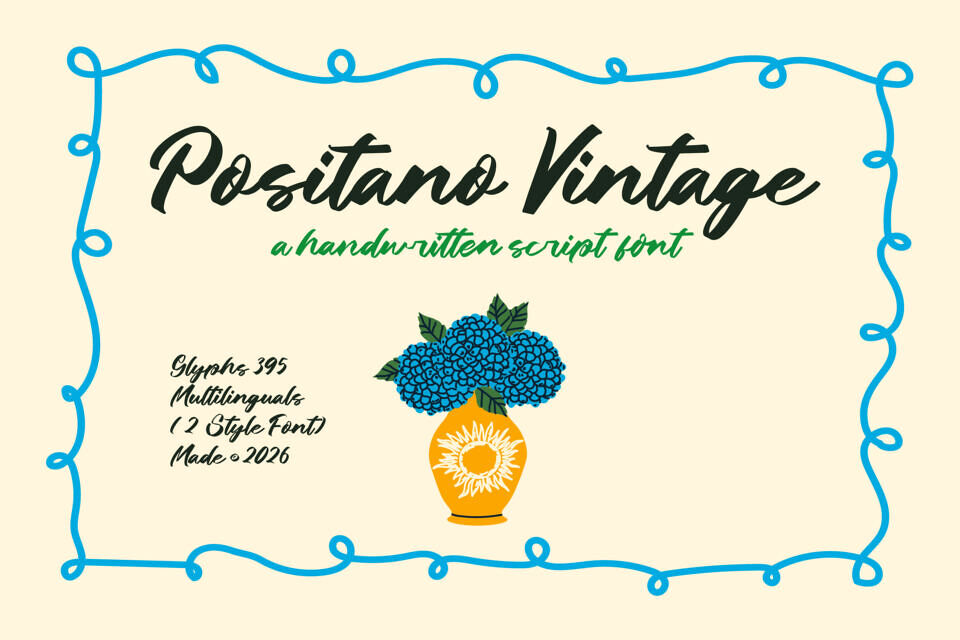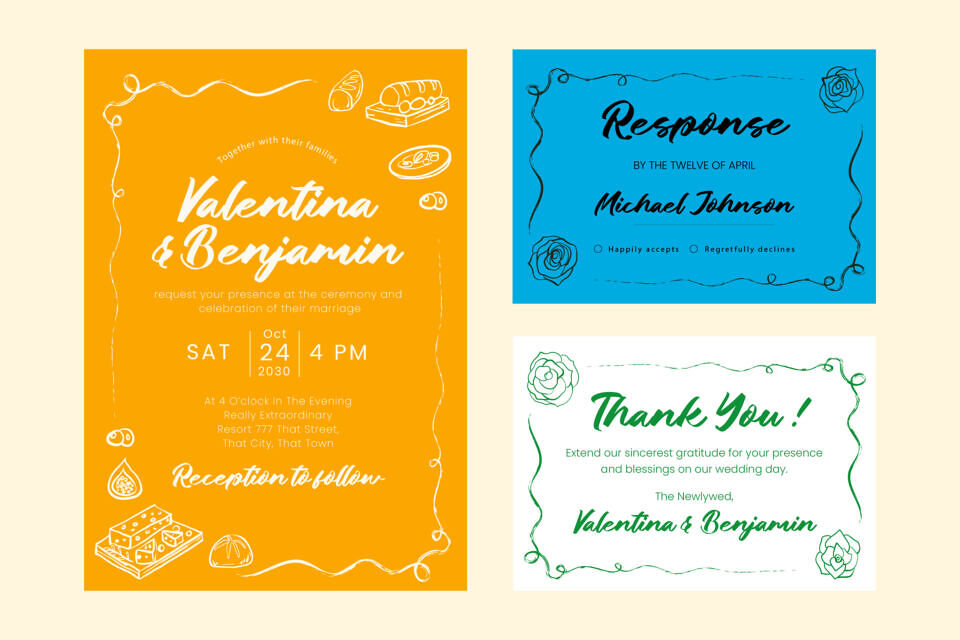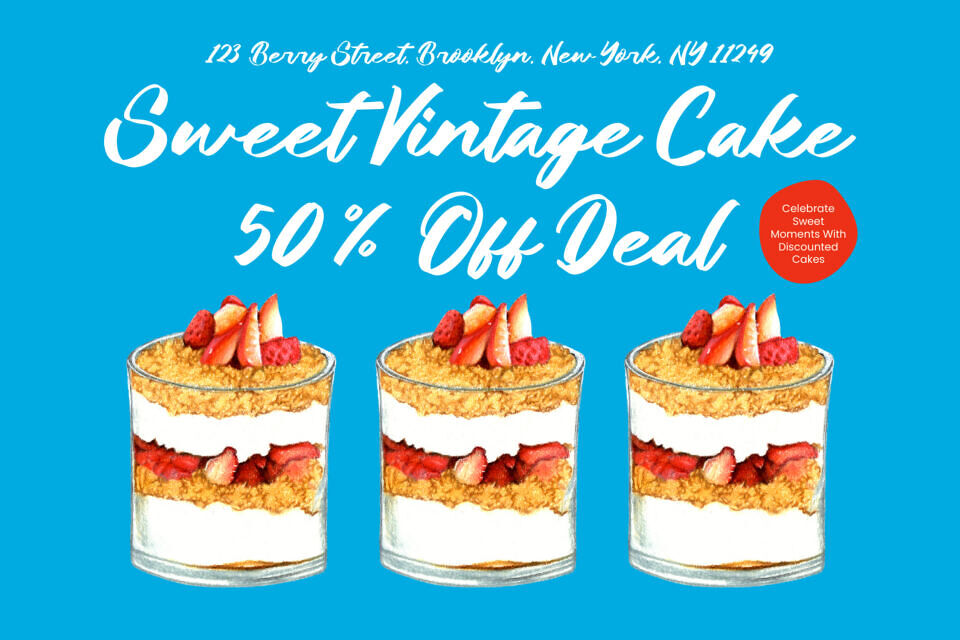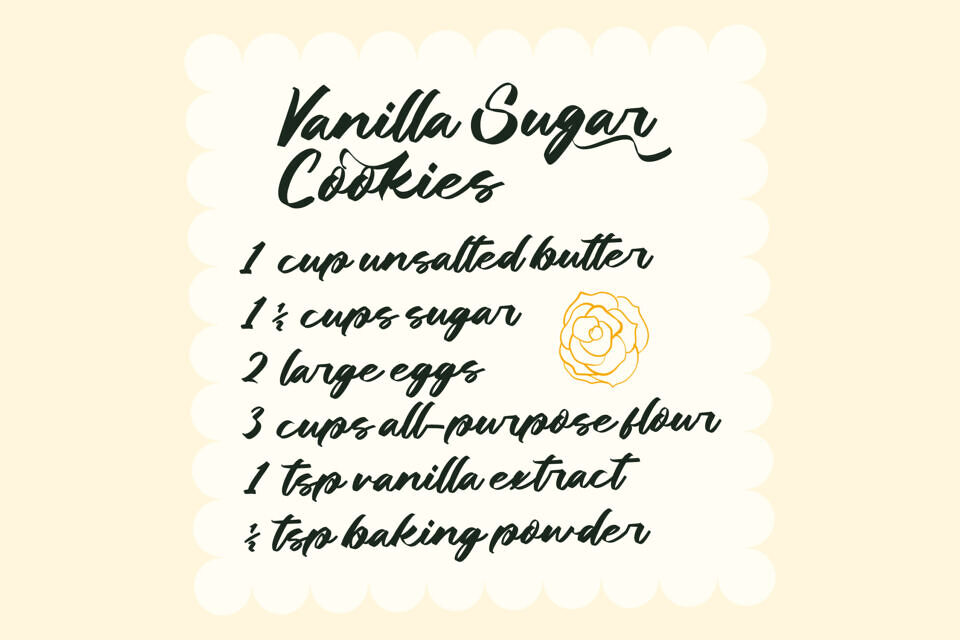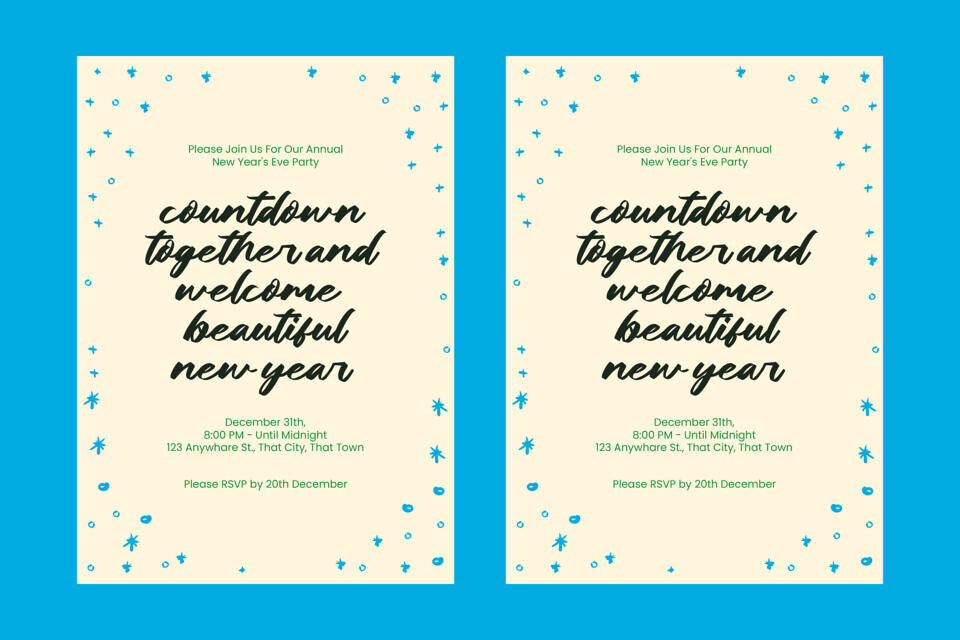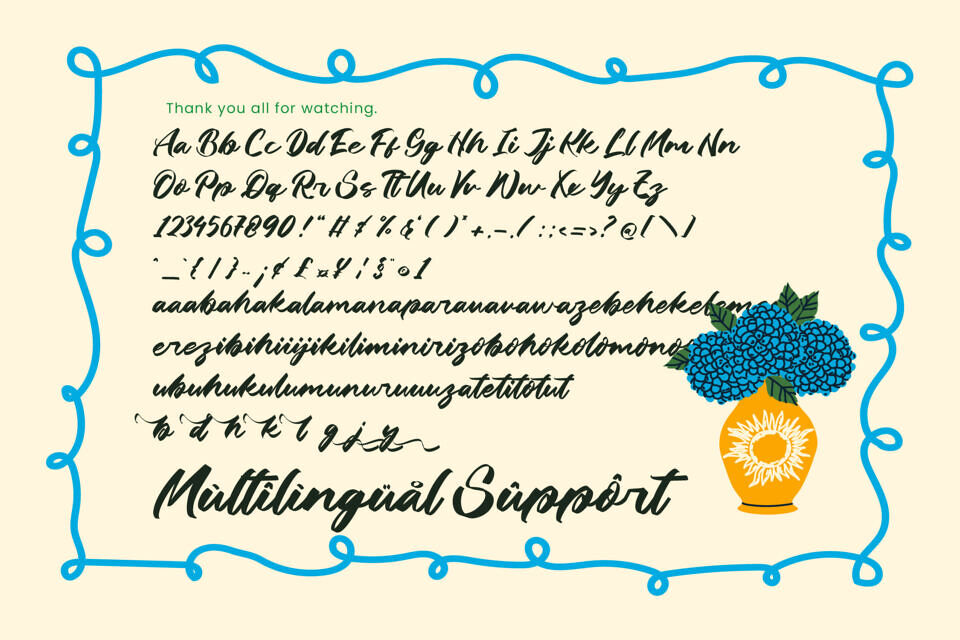
Positano Vintage is a charming handwritten script typeface inspired by classic vintage packaging, retro café signage, and nostalgic handcrafted lettering. Designed to capture the warmth of natural handwriting, this font delivers a playful yet authentic personality perfect for creative branding and lifestyle design.
With its smooth flowing strokes, soft rounded terminals, and organic rhythm, Positano Vintage evokes the character of traditional hand-painted lettering often seen in bakery labels, travel posters, and artisanal product packaging.